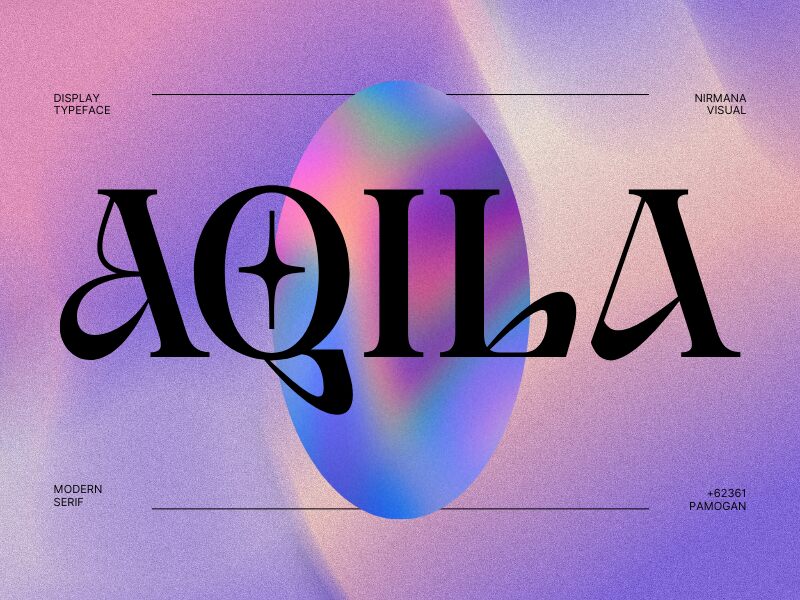
Aqila font by Nirmana Visual is a retro display typeface that seamlessly blends modern and vintage aesthetics. Featuring ornate, decorative elements, it exudes an artistic flair with each stylized letter form contributing to the overall visual intrigue. This is a free font with playful yet slightly whimsical elements that captivate attention.
Boost your artistic posters, flyers, educational resources with this fascinating typeface. Transport your readers to a new visual dimension through books and magazines, or establish professional rapport in presentations and emails. Notebooks are always useful as study aids for students and even more so when they’re personally decorated. Use the font on covers, headings, packaging designs of all sorts.